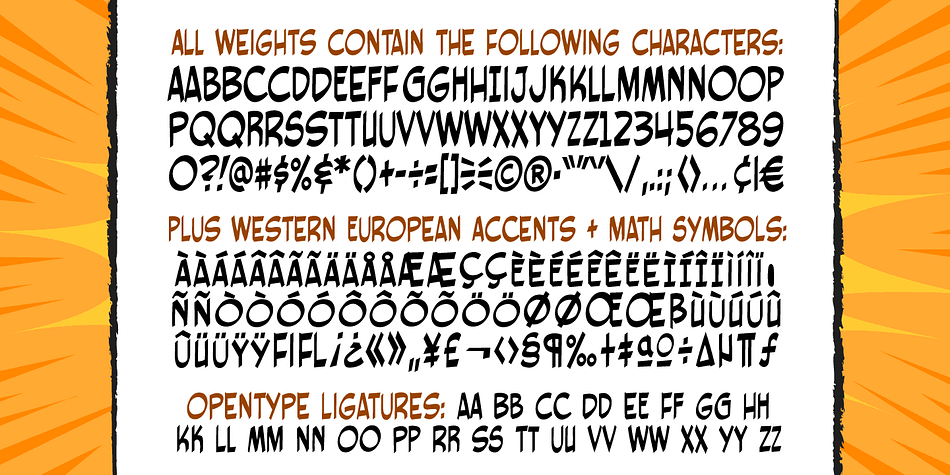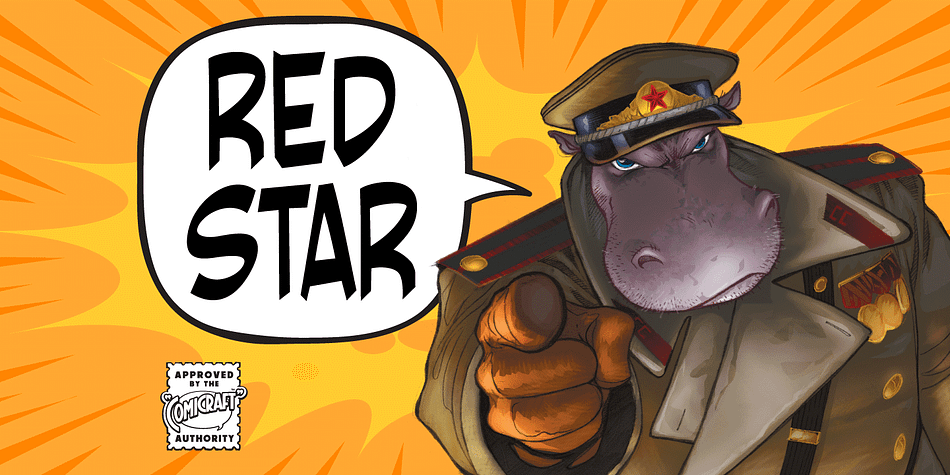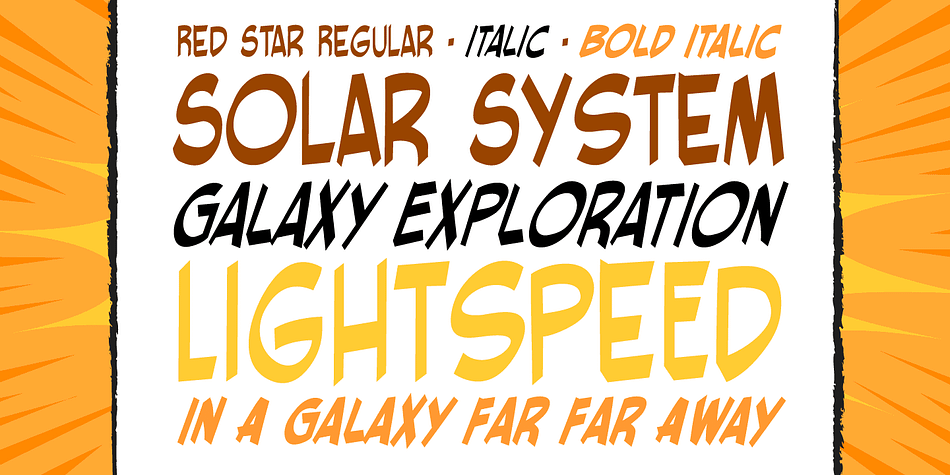
Designed by John Roshell and Richard Starkings, Red Star is a comic and hand display font family. This typeface has three styles and was published by Comicraft.
The Red Star has risen. Capitalism is on the decline. Under the supervision of Kommisar Christian Gossett and his Red Star cabinet, Comrade Craft has completed the revolutionary new Soviet Block Letters; RedStar, RedSquare and DropCase. The Proletariat is instructed to rejoice. Today is truly a Red Letter Day!